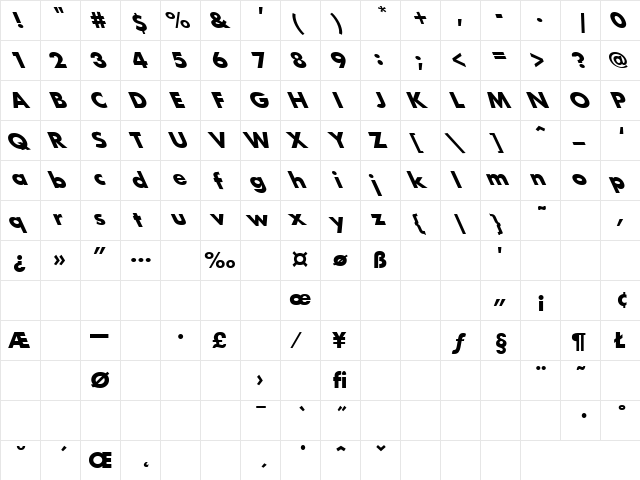
Heartbreaker 4 Regular
Design Context for Heartbreaker 4 Typeface
Heartbreaker 4 is a composed and adaptable typeface that performs quietly and consistently across a wide range of design contexts.